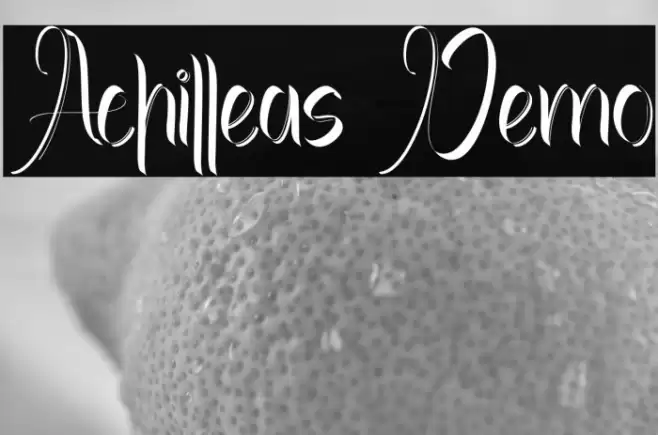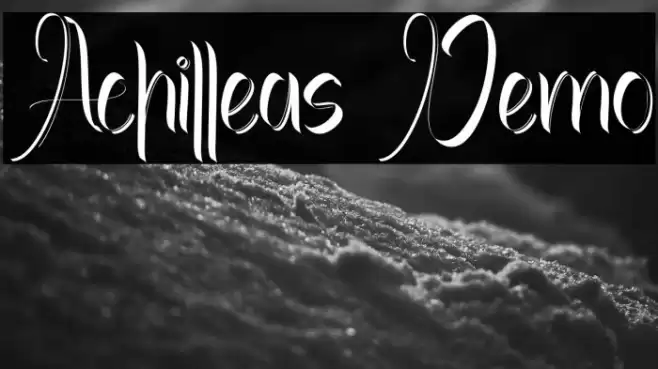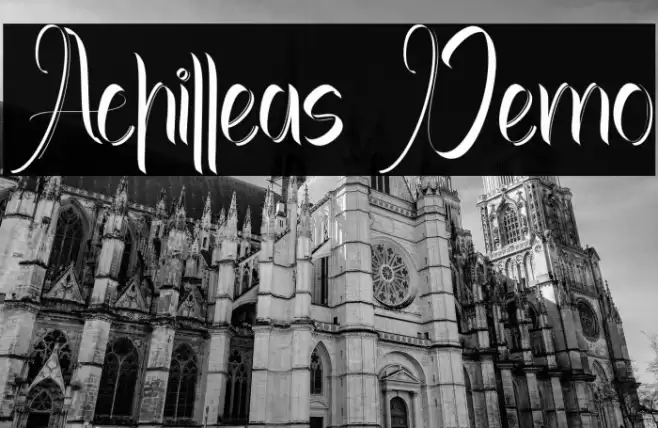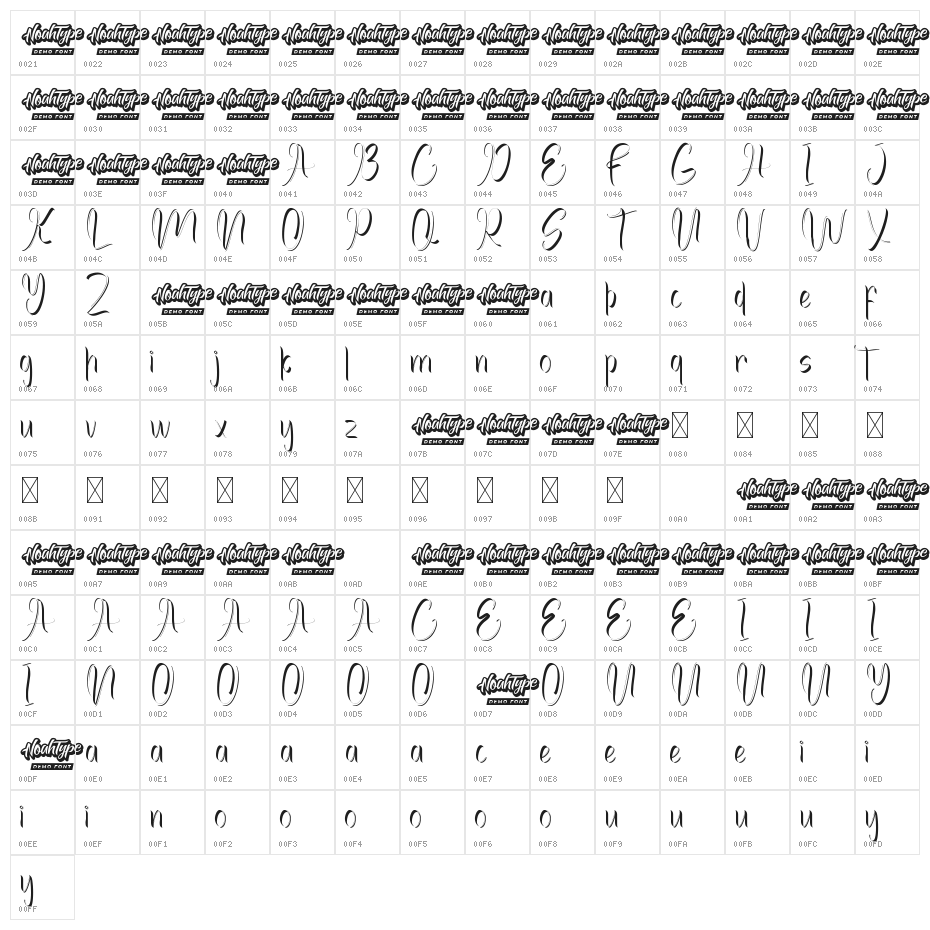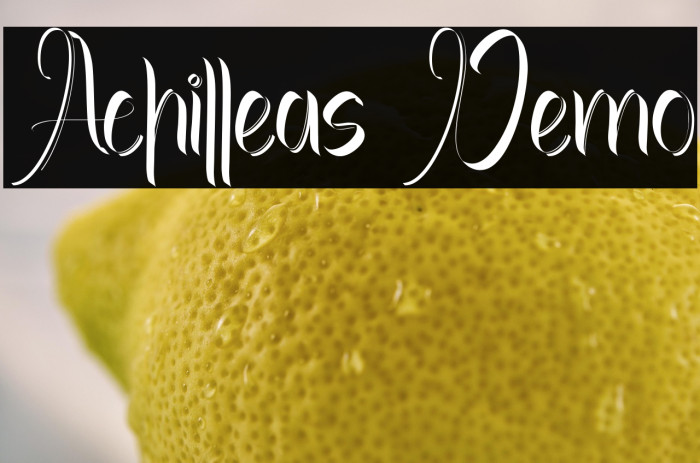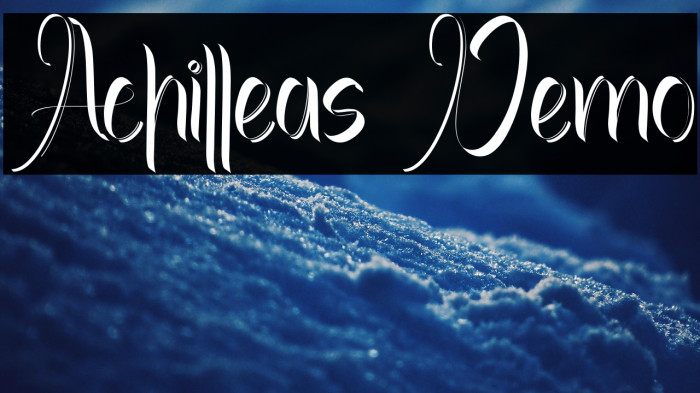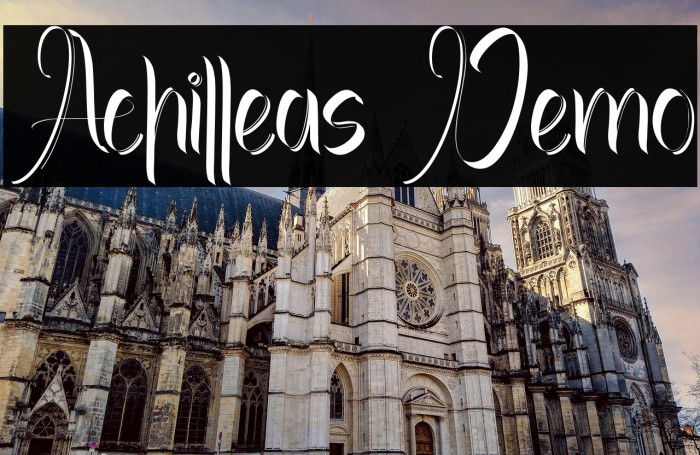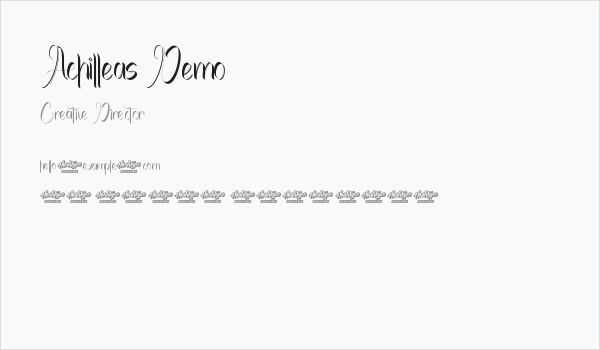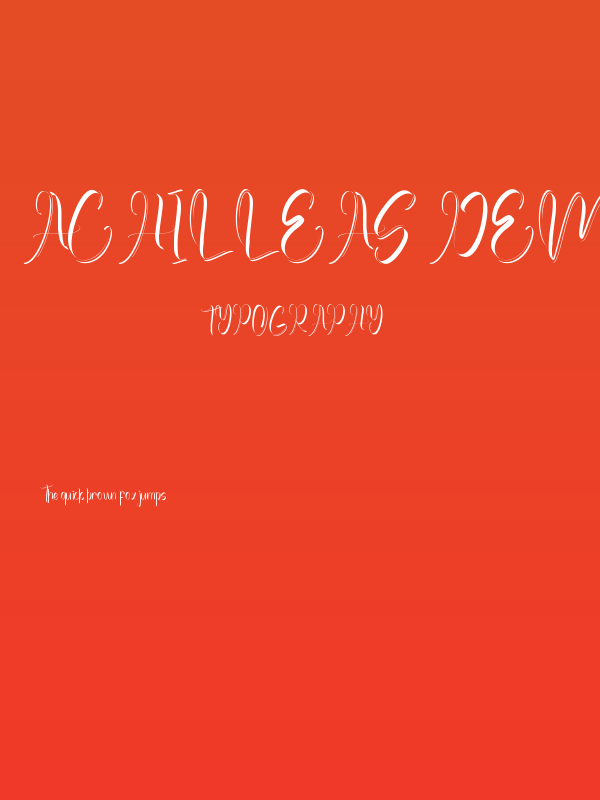
Achilleas Demo Font
Achilleas Demo Description
This font features a dynamic and fluid script style, characterized by its elegant and flowing letterforms. The strokes vary in thickness, creating a sense of movement and rhythm. The uppercase letters are particularly expressive, with sweeping curves and loops that give the font a lively and artistic appearance. The lowercase letters maintain this fluidity, with some characters featuring unique flourishes and accents. The overall design is both sophisticated and playful, making it suitable for a variety of creative applications.
A dynamic and fluid script font with elegant, flowing letterforms from Uncategorized fonts.
- Proposed Projects: Ideal for wedding invitations, greeting cards, branding, and artistic projects that require a touch of elegance and creativity.
- Use Case: Logos, Invitations, Artistic Projects